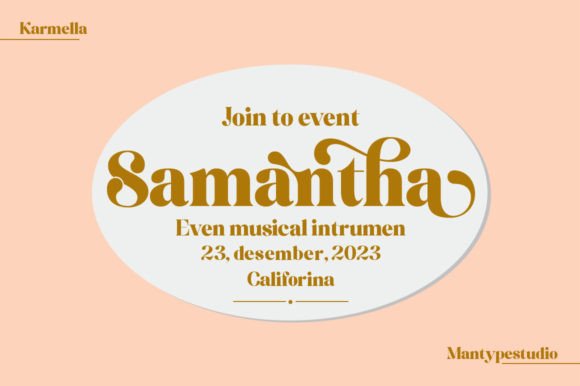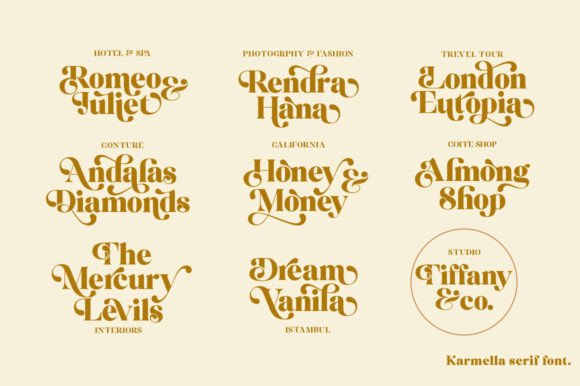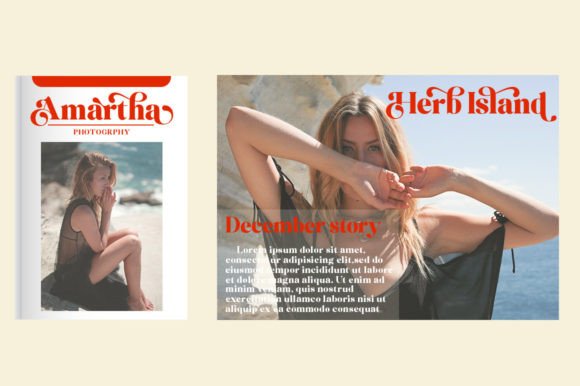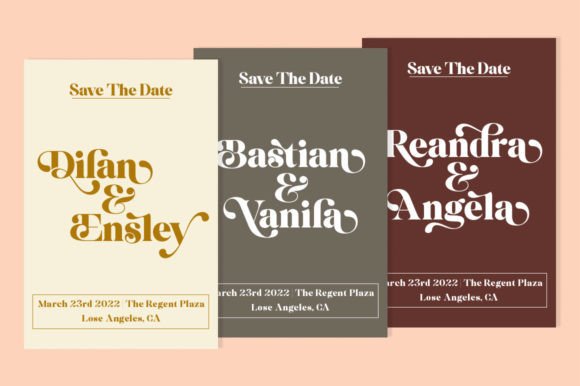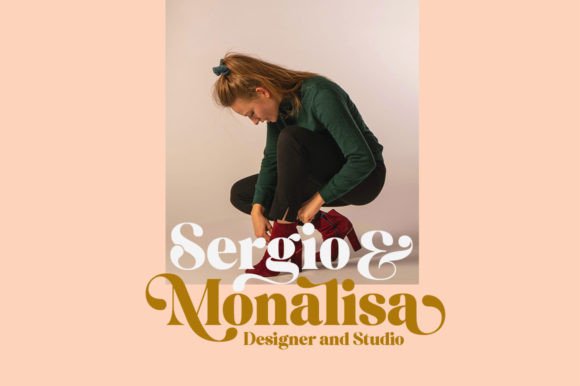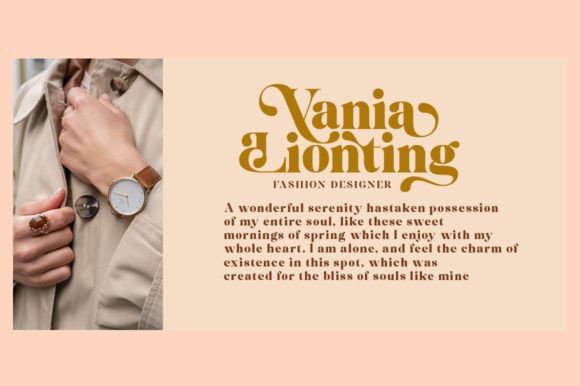
Introduction to Karmella Font
Do you remember the moment when you first started working on a creative project that required the perfect touch of elegance? Maybe it was a wedding invitation, a heartfelt birthday card, or a beautiful typography piece that needed a sophisticated flair. Whatever it was, you probably spent hours browsing through design resources, searching for that one font that would elevate your design to the next level.
That’s where Karmella Font comes in – a stunning serif font that’s as refined as it is cheerful. With its abundance of curvy letters, Karmella Font is the perfect addition to any design project that needs a romantic, personalized touch. Whether you’re a seasoned designer or a creative enthusiast, this high-quality font is sure to impress. And the best part? You can download it with a transparent background, making it easy to integrate into any design.
- Unique characteristics include a modern and elegant aesthetic, making it suitable for a wide range of creative projects
Honest Review: Karmella Font
As a designer, I’m always on the lookout for high-quality design resources to elevate my creative projects. Recently, I came across the Karmella Font, and I’m excited to share my honest review.
- ✨ Unique and elegant design aesthetic, perfect for luxury and high-end branding projects.
- ✨ Clear and legible fonts in various weights and styles, making it versatile for different creative applications.
Overall, the Karmella Font is a solid choice for designers who need a high-quality font for their creative projects. While it has some limitations, its unique design and free download option make it a great value for the price. If you’re looking for a premium font to elevate your designs, the Karmella Font is definitely worth considering.